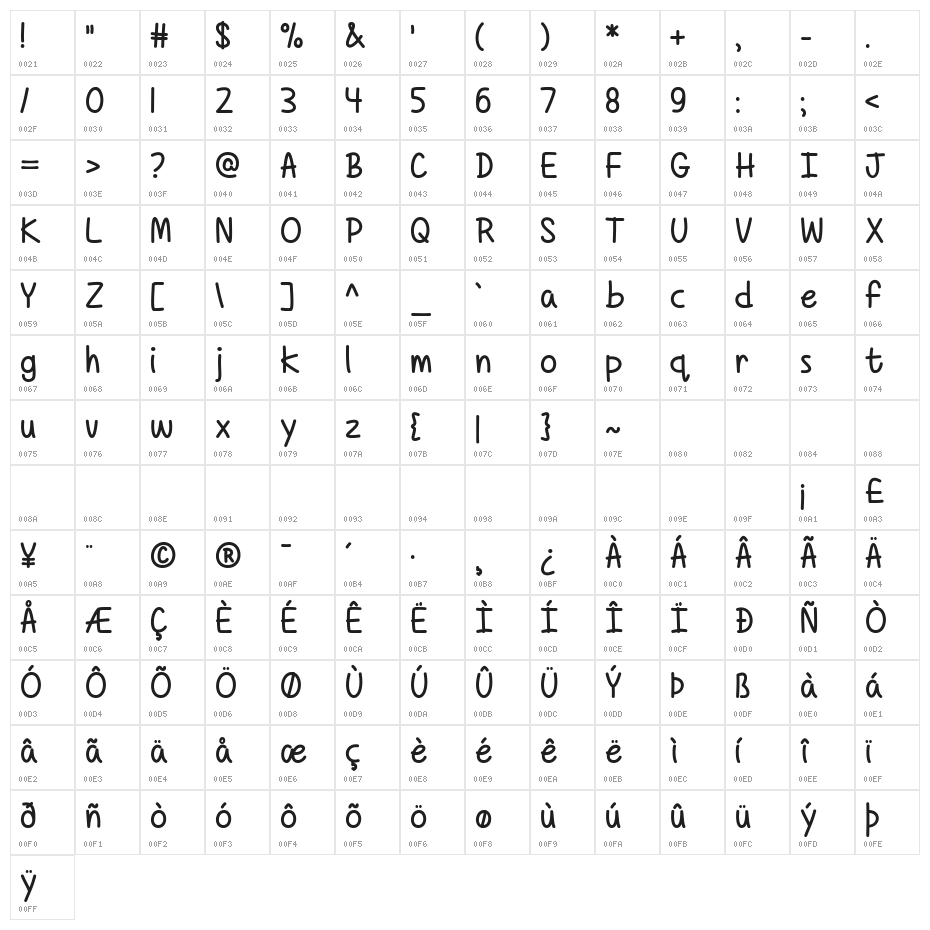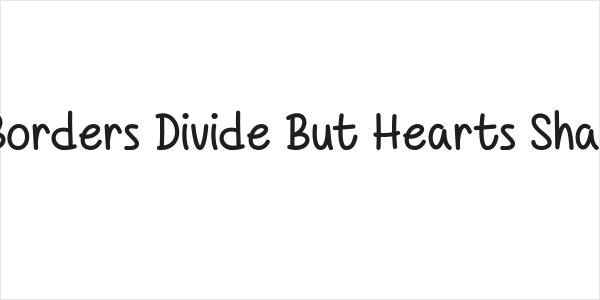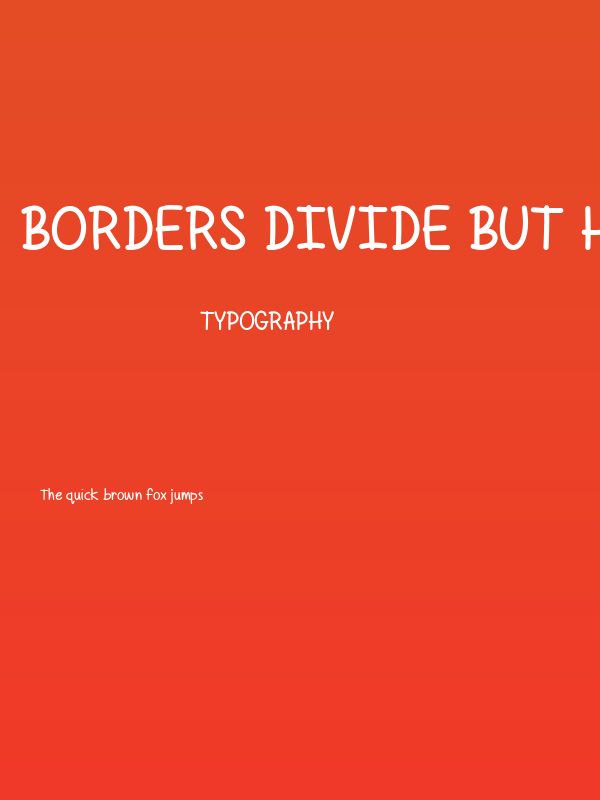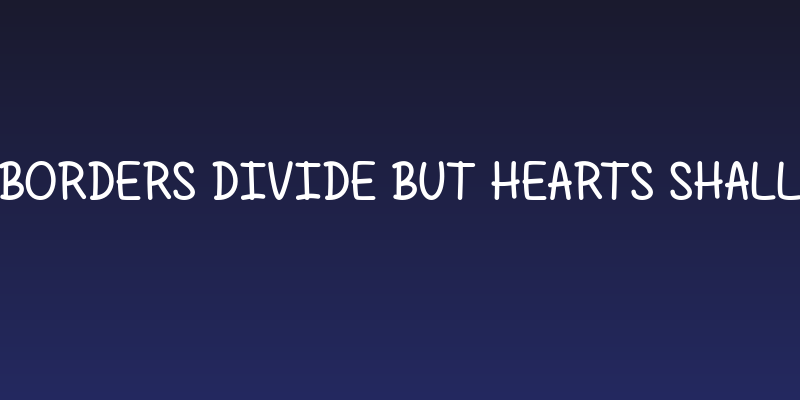
Borders Divide But Hearts Shall Font
Borders Divide But Hearts Shall Description
This playful and rounded font exudes a friendly and approachable vibe. The characters are evenly spaced with a consistent stroke width, giving it a clean and legible appearance. The uppercase and lowercase letters maintain a uniform style, with slightly exaggerated curves that add a whimsical touch. The numerals are clear and easy to read, matching the overall aesthetic of the alphabet. Special characters are well-integrated, maintaining the font's cohesive look. This font is perfect for projects that require a casual and inviting feel.
| Proposed Projects | Ideal for children's books, playful branding, greeting cards, and casual digital content. |